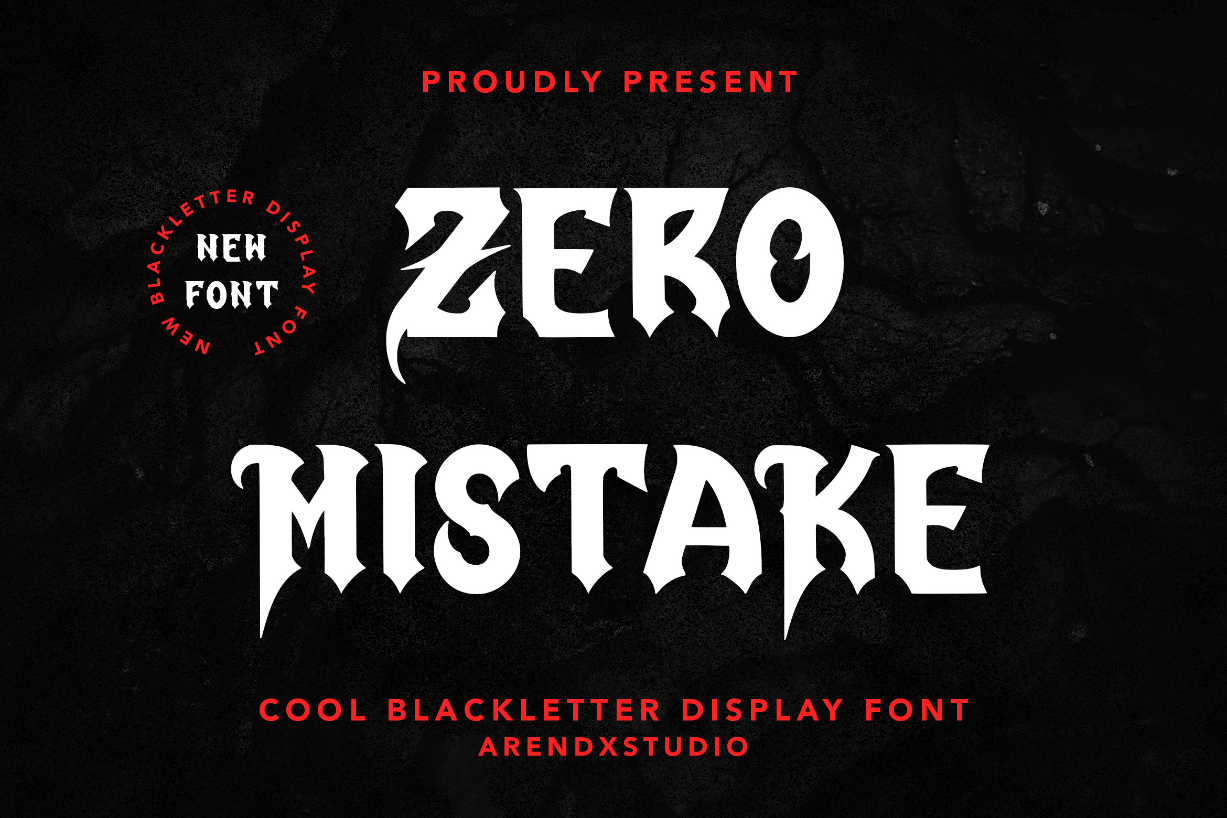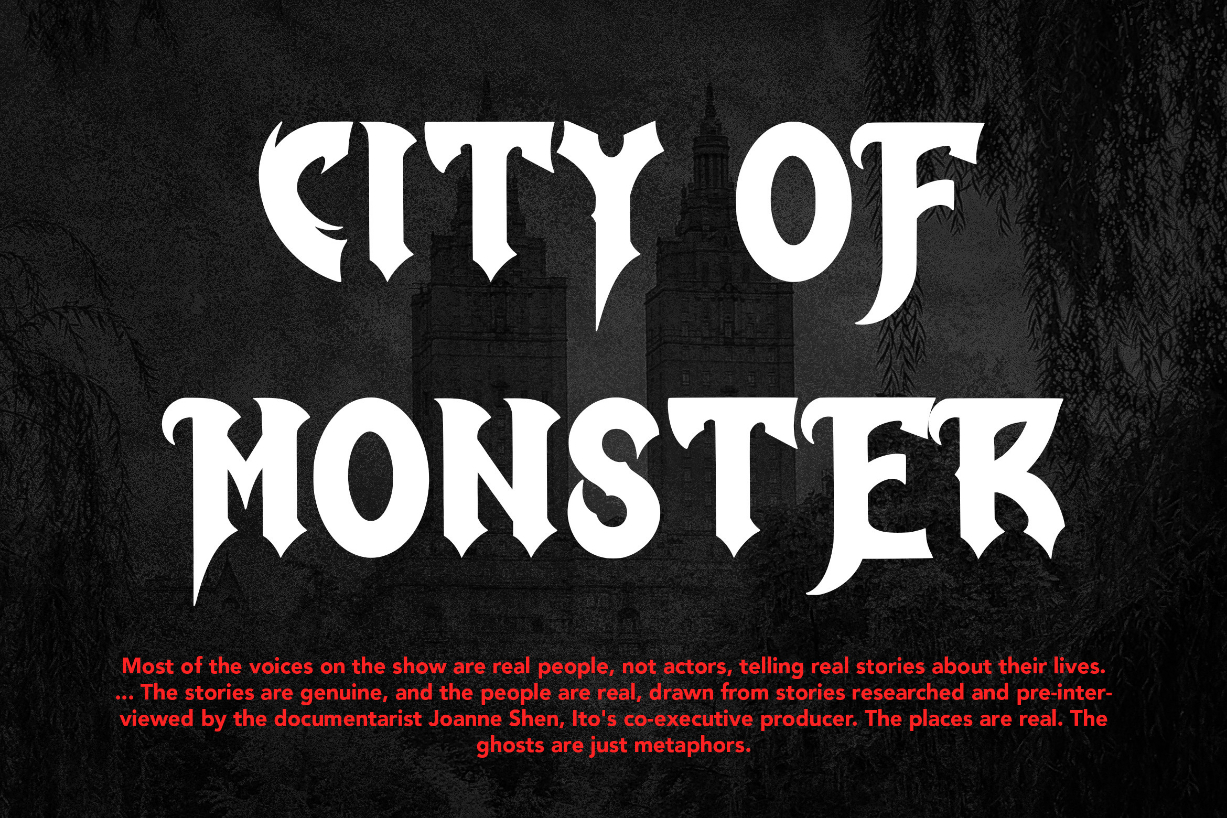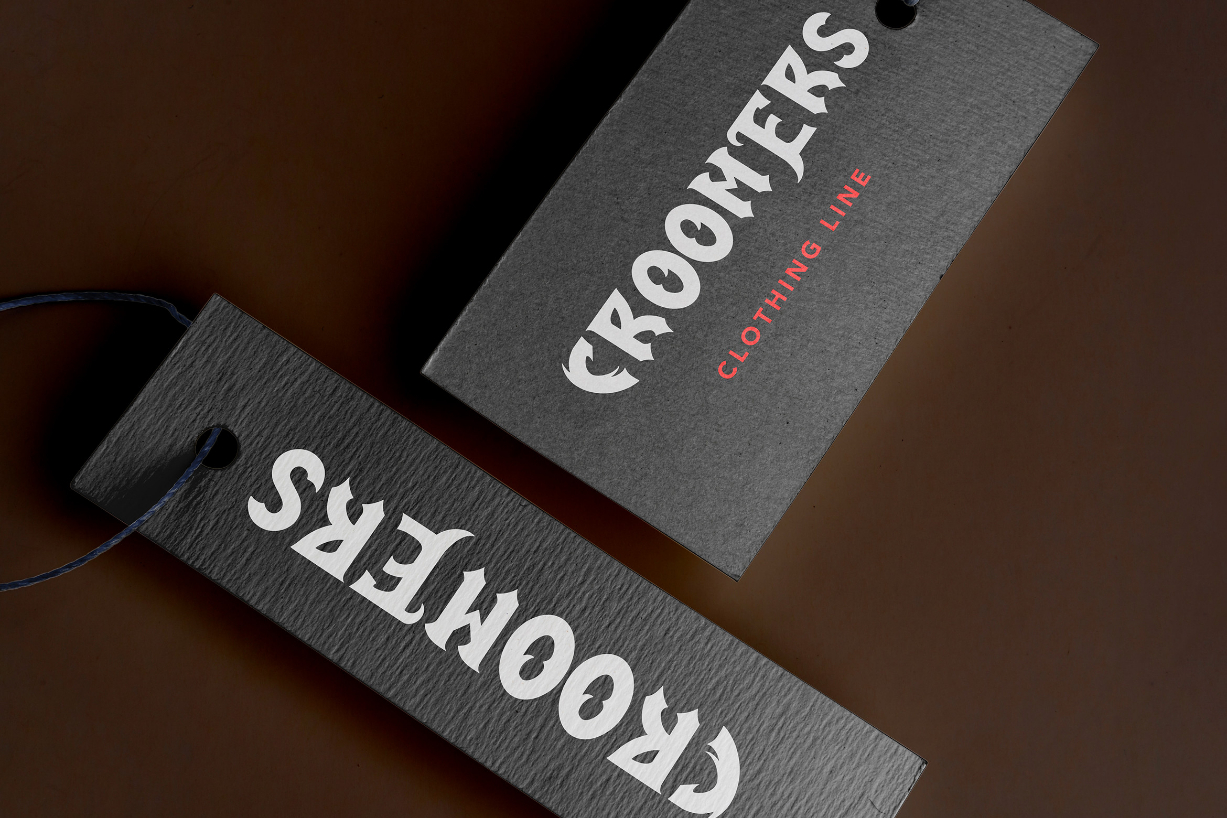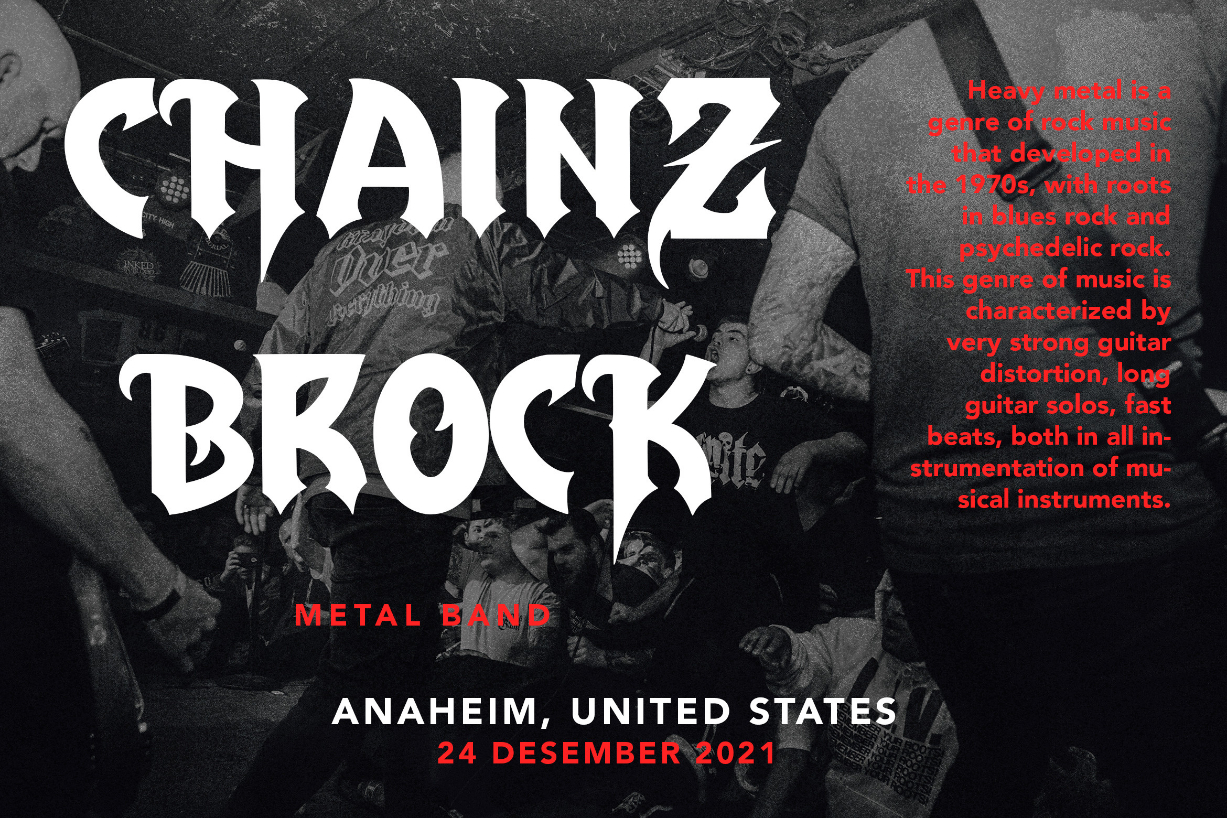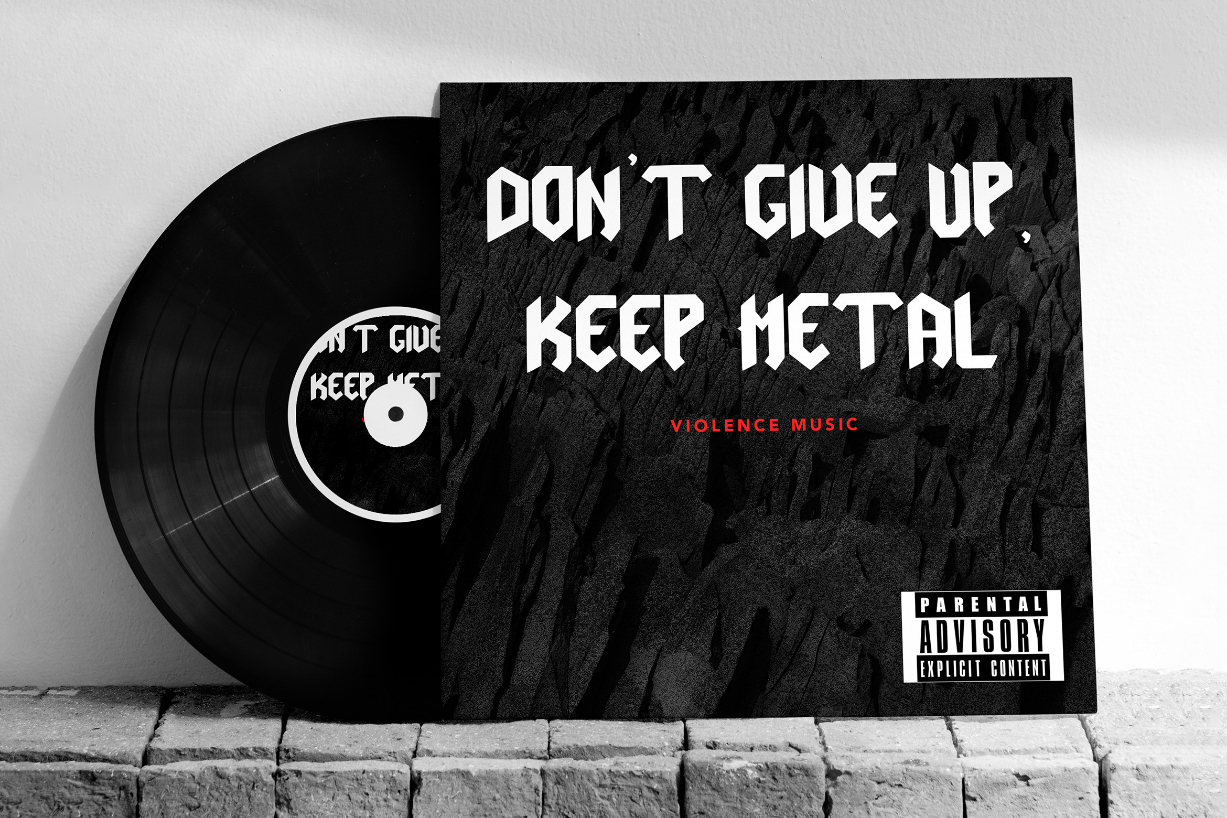
About Zero Mistake Font
Zero Mistake is a cool blackletter font inspired by gothic and horror styles. It has a unique look and solemn characters, perfect for creating impressive logotypes, posters, badges, book covers, t-shirt designs, packaging, and more.